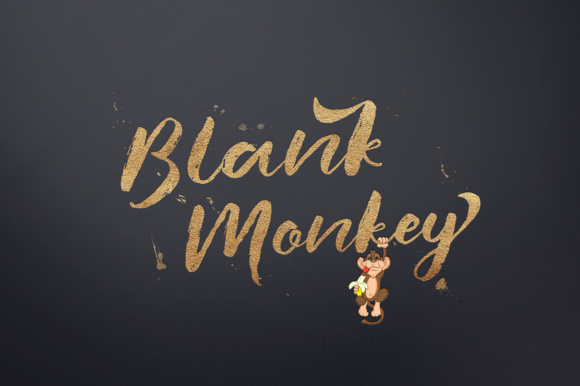
The Elusive Perfect Font: My Encounter with Blank Monkey
I’ll never forget the struggle I faced while working on a wedding invitation project. My client wanted an elegant, yet relaxed vibe, and I was on a mission to find the perfect font. I scoured the internet, tried out dozens of fonts, but nothing seemed quite right. That was until I stumbled upon Blank Monkey, a highly stylized handwritten font that instantly caught my attention. In this article, I’ll share my experience with Blank Monkey, its features, and how to make the most of it in your designs.
An Honest Review of Blank Monkey
What I Love About Blank Monkey ✨
• ✨ Elegant and refined, yet relaxed and casual – it’s a perfect blend of sophistication and approachability.
• ✅ Highly stylized handwritten font with a unique character.
• 💫 Has a subtle texture, giving it a worn-in look that’s perfect for designs that need a bit of character.
• 🌈 Versatile and works well for a variety of projects, from wedding invitations to branding and packaging.
• ⚠️ Some users might find the texture and subtle imperfections too casual for very formal projects.
• 🤔 Limited use of uppercase letters, which might not be ideal for designs that require all-caps text.
The Story Behind Blank Monkey
Blank Monkey was designed by a talented type designer who wanted to create a font that was both elegant and approachable. Inspired by the beauty of handwritten calligraphy, the designer aimed to create a font that would add a touch of sophistication to any project. With its subtle texture and refined lines, Blank Monkey is the perfect choice for designers looking for a unique and versatile font.
Q: What type of projects is Blank Monkey best suited for?
A: Blank Monkey is versatile and works well for a variety of projects, including wedding invitations, branding, packaging, and more.
Q: Is Blank Monkey a difficult font to read?
A: No, Blank Monkey is designed to be legible and easy to read, making it perfect for body text and headlines.